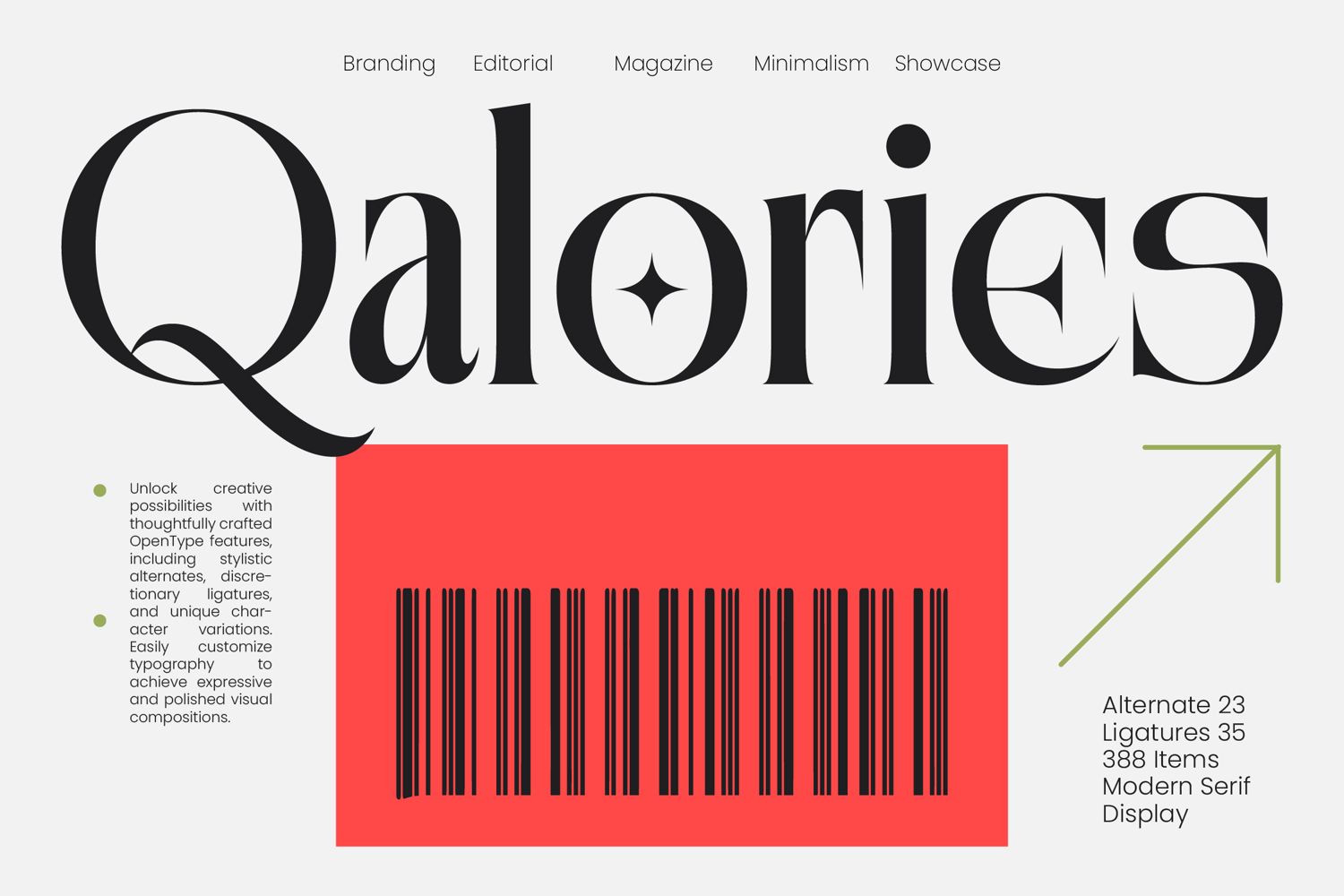
Qalories - Modern Serif Display
Elevate your design projects with a touch of timeless sophistication and modern flair. Qalories - Modern Serif Display is a masterpiece of contemporary typography, blending high-contrast strokes with elegant serif structures to create a commanding visual presence. This premium typeface is designed for those who demand luxury branding and a sophisticated aesthetic that stands out in a crowded marketplace.
Experience unparalleled versatility in every glyph and ligature meticulously crafted for perfection. With its extensive multilingual support, Qalories - Modern Serif Display adapts seamlessly across global markets, making it incredibly versatile for international projects. The inclusion of unique stylistic alternates and expressive ligatures allows designers to create bespoke typography that resonates with a modern, high-sensibility.